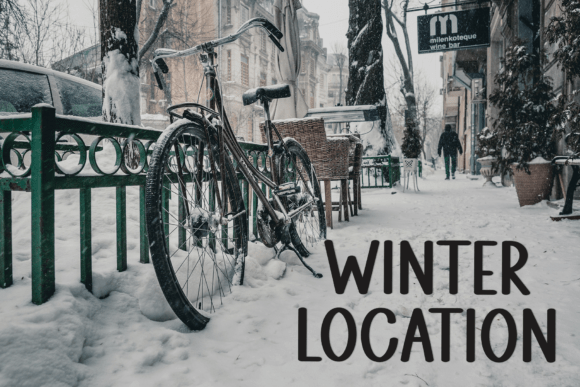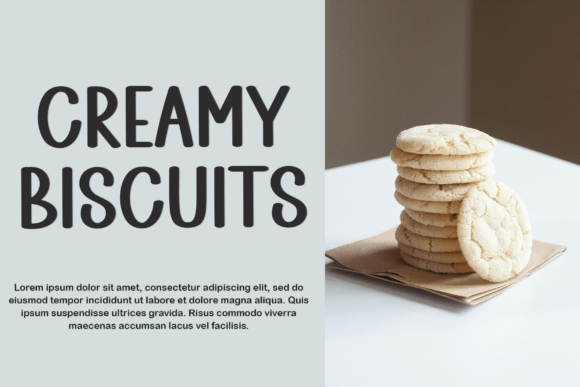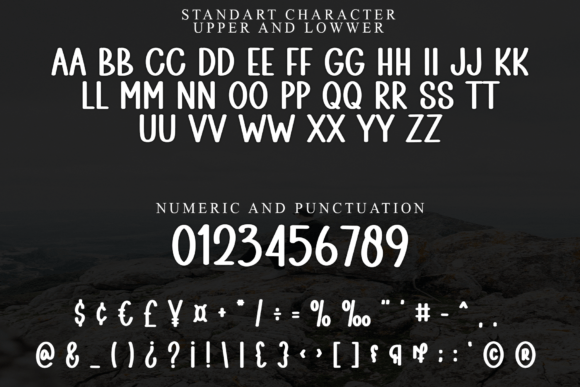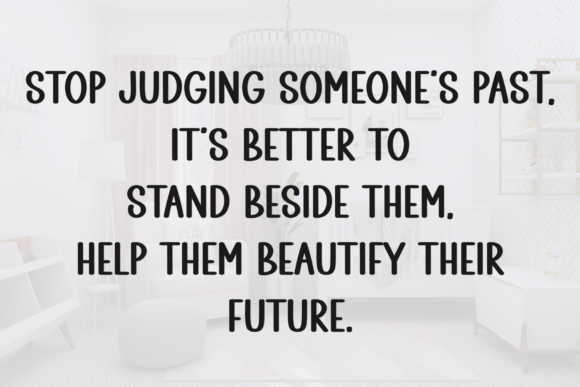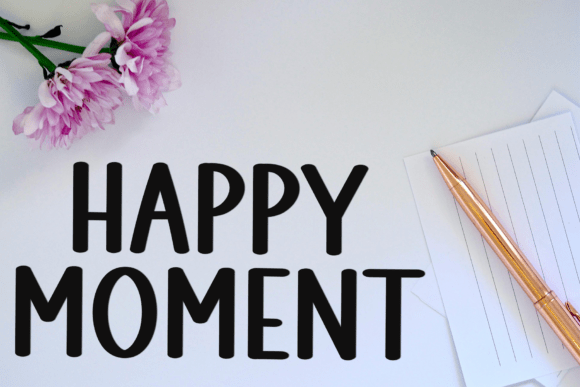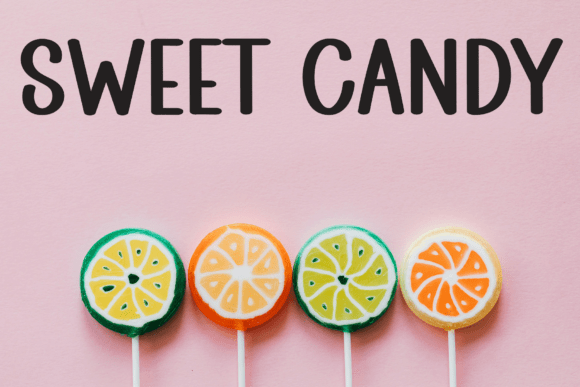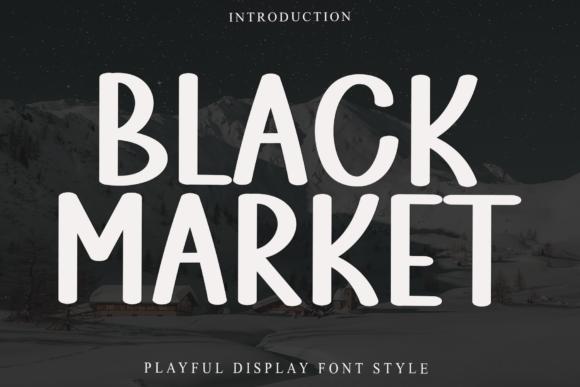
Introducing Black Market Font: A Festive and Merry Typeface for the Holiday Season
Are you looking for a font that captures the magic and spirit of the holiday season? Look no further than Black Market Font, a decorative and whimsical typeface that’s perfect for adding a touch of enchantment to your designs. With its festive elements and nostalgic ambiance, this font is ideal for greeting cards, gift tags, and holiday-themed projects.
The Perfect Font for Holiday Designs
Black Market Font is a beautifully crafted typeface that’s designed to bring a cheerful and merry feel to your typography. Its decorative elements and whimsical flair make it perfect for designers and crafters who want to add a touch of personality to their work. Whether you’re creating holiday greeting cards, gift tags, or festive posters, this font is sure to make your designs shine.
Key Features of Black Market Font
- Festive and Merry Design: Black Market Font is designed to capture the spirit of the holiday season, with a festive and merry feel that’s perfect for holiday designs.
- Decorative Elements: The font features decorative elements and whimsical flair, adding a touch of enchantment to your typography.
- Perfect for Holiday Projects: Black Market Font is ideal for holiday-themed projects, including greeting cards, gift tags, and festive posters.
Why Choose Black Market Font?
There are many fonts available that claim to be festive and merry, but Black Market Font stands out from the crowd. Here are just a few reasons why:
- Unique Design: Black Market Font has a unique and distinctive design that’s sure to make your designs stand out.
Tips for Using Black Market Font
Here are a few tips for using Black Market Font in your designs:
- Use it for Headlines: Black Market Font is perfect for headlines and titles, where its decorative elements and whimsical flair can really shine.
Black Market Font is a festive and merry typeface that’s perfect for adding a touch of enchantment to your designs. With its decorative elements and whimsical flair, it’s ideal for holiday-themed projects, including greeting cards, gift tags, and festive posters. With PUA encoding, you can access all of the amazing glyphs and ligatures with ease, giving you a wide range of creative possibilities. So why not give Black Market Font a try and see how it can bring a touch of magic to your typography?